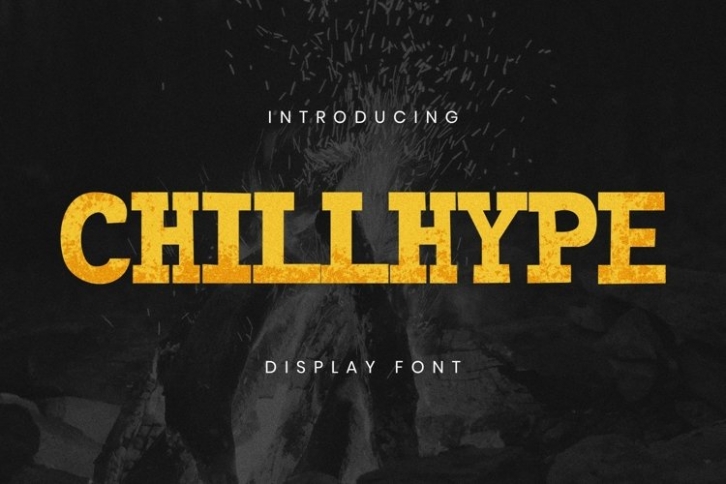
Chillhype is a trendy and unique font with an authentic style. It was designed by plusstore and it's a great choice for creative people who need such a font. It was released on January 1, 1970 and the file size is 1.18 MB. Chillhype will add an organic vibe to any design idea!